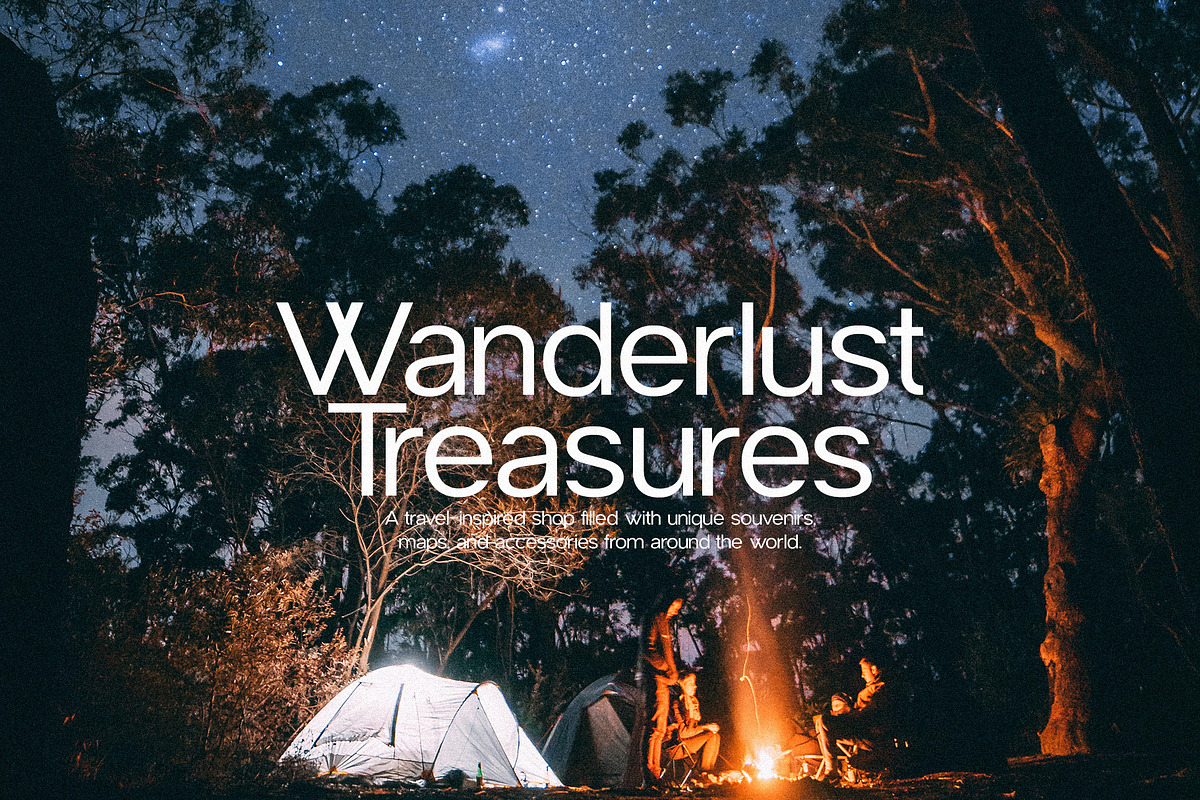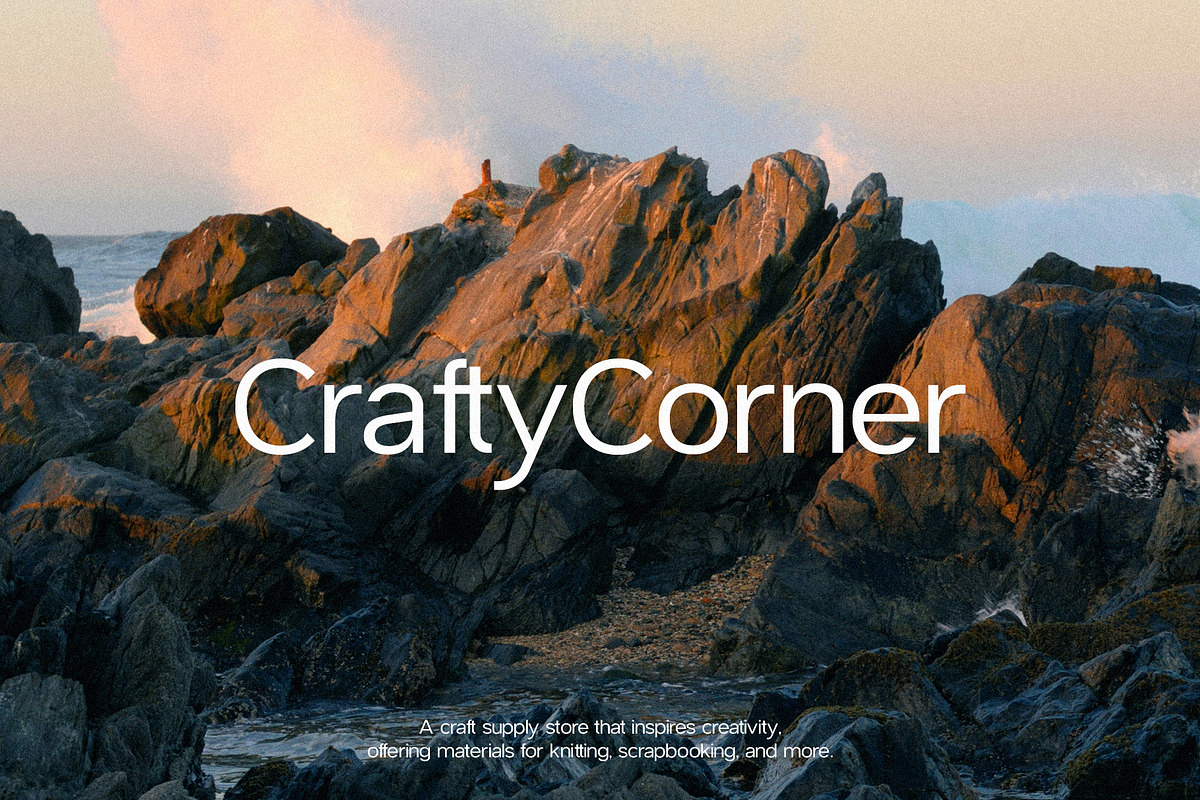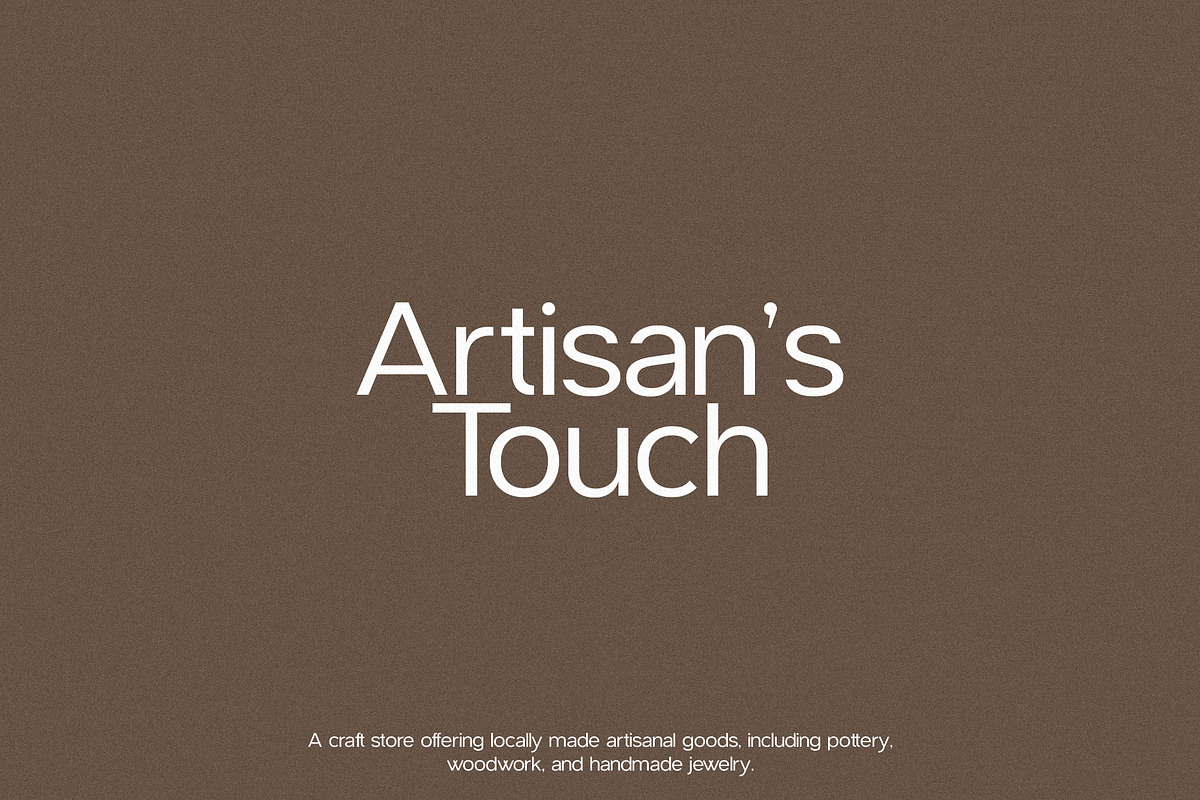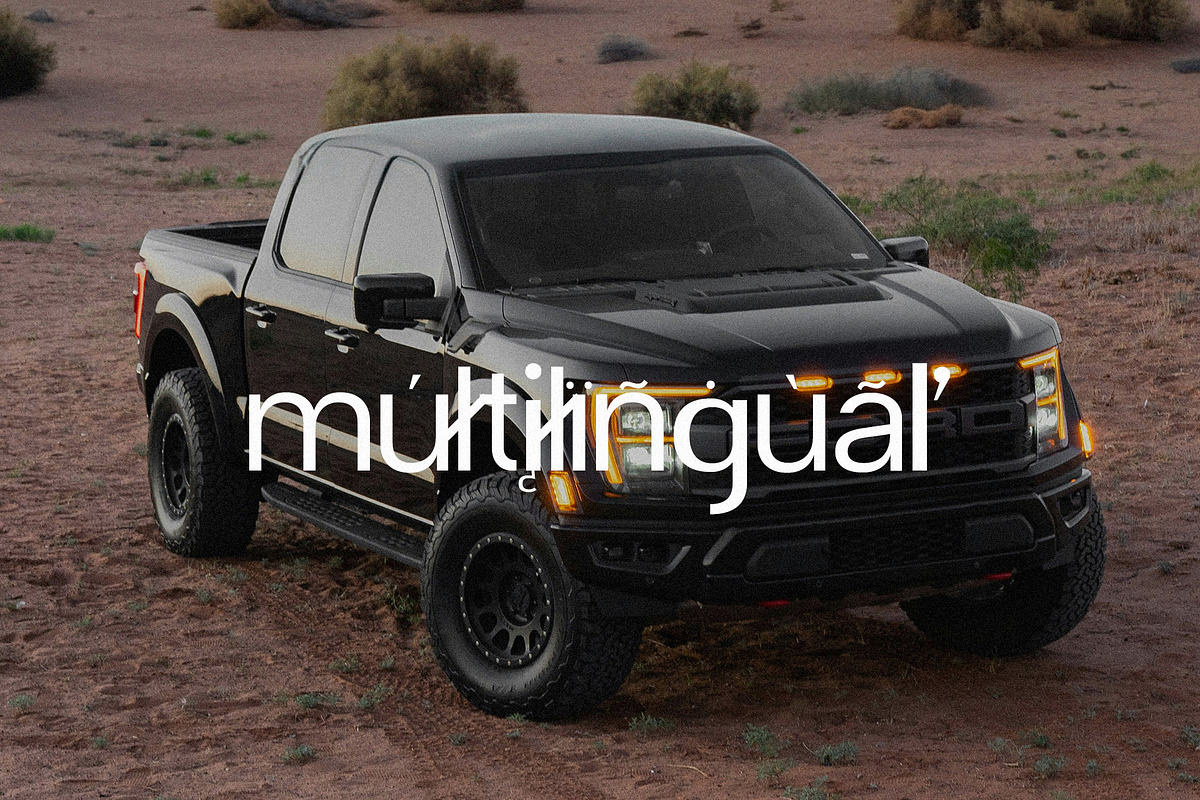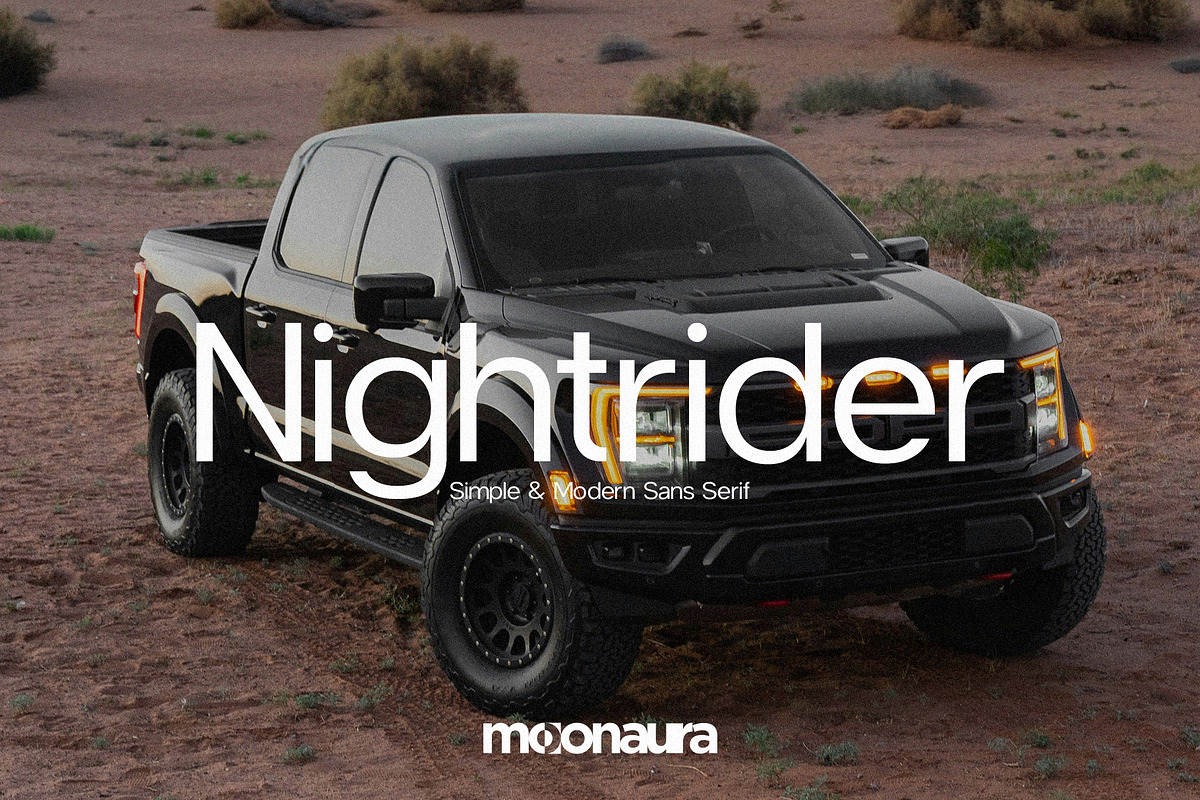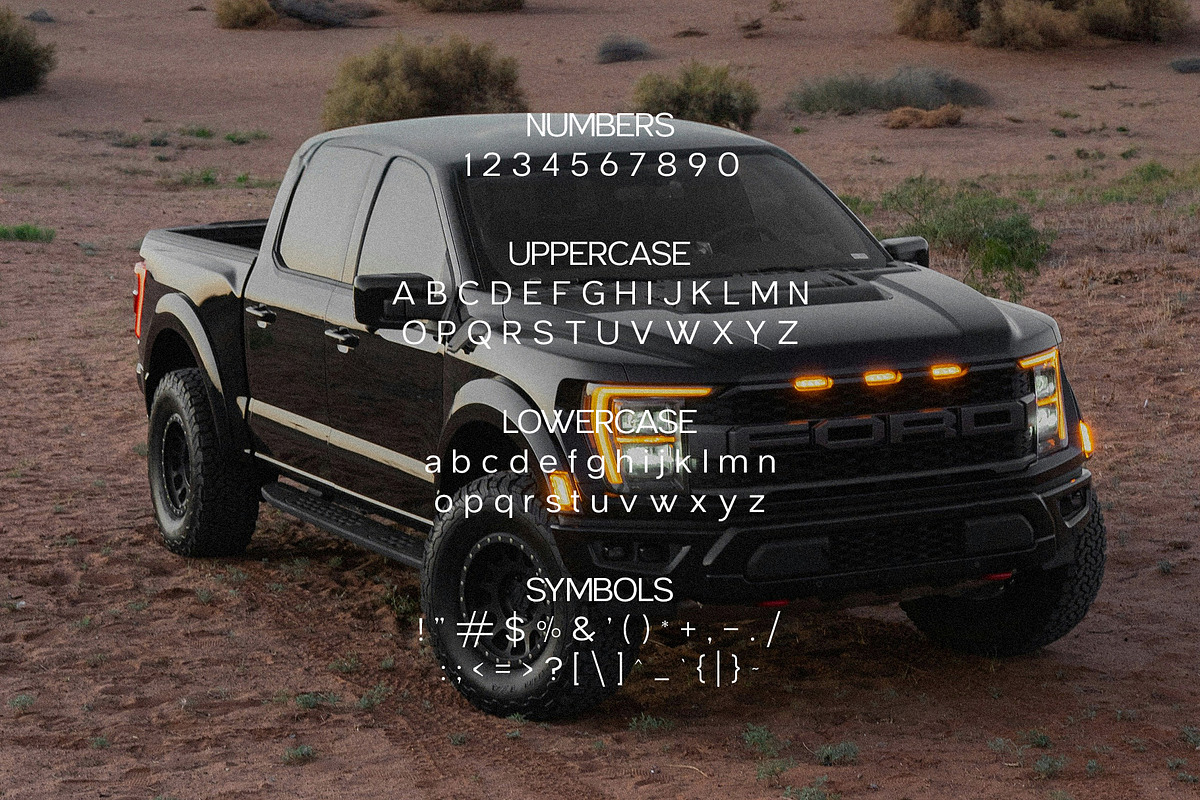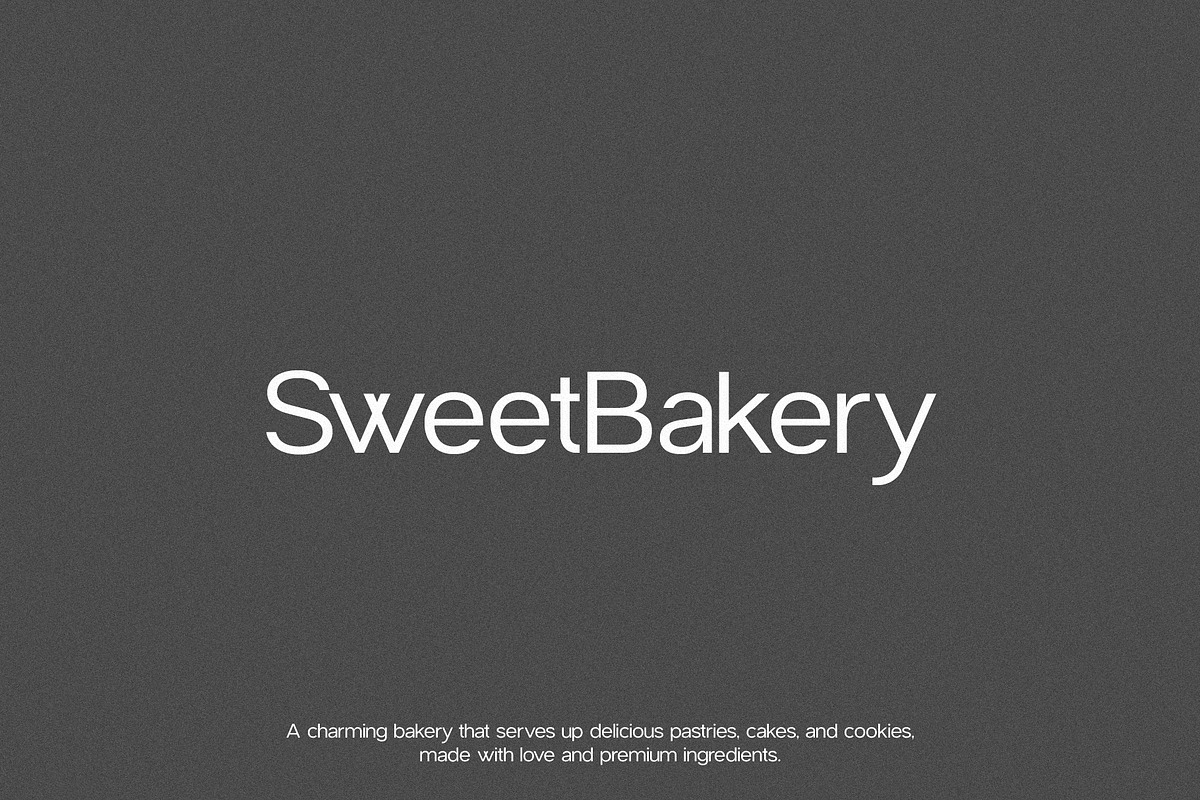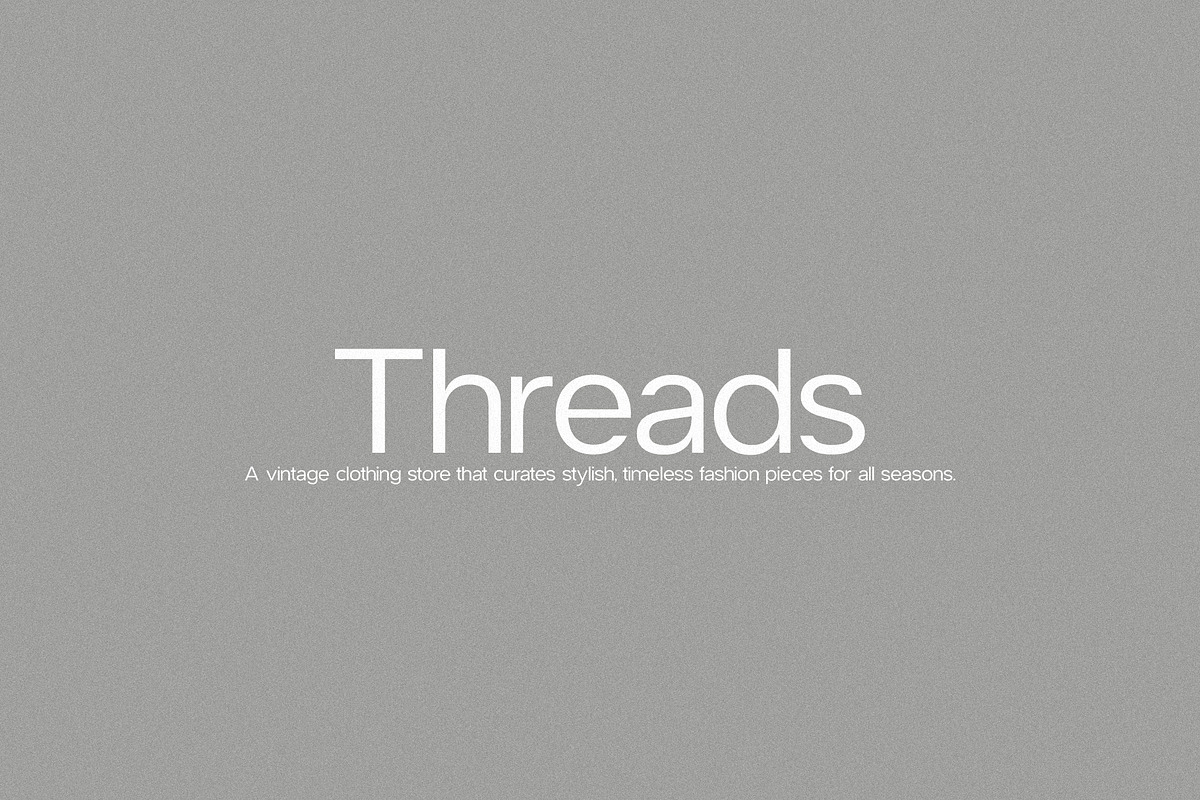
Nightrider - Simple & Modern Sans
Nightrider is a simple, modern sans-serif typeface with clean, straightforward lines. Its minimalistic design offers a sleek, contemporary look, making it perfect for a wide range of design projects that prioritize clarity and style.